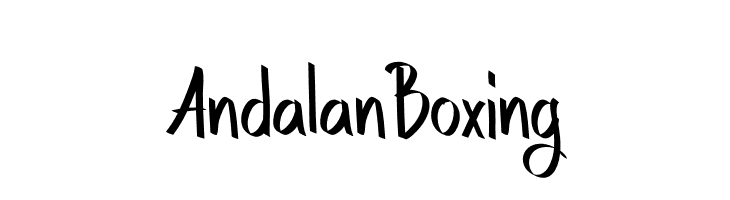
A bold, expressive font with dynamic strokes and a modern artistic style.
A lively, handwritten font with fluid strokes and a modern, casual aesthetic.